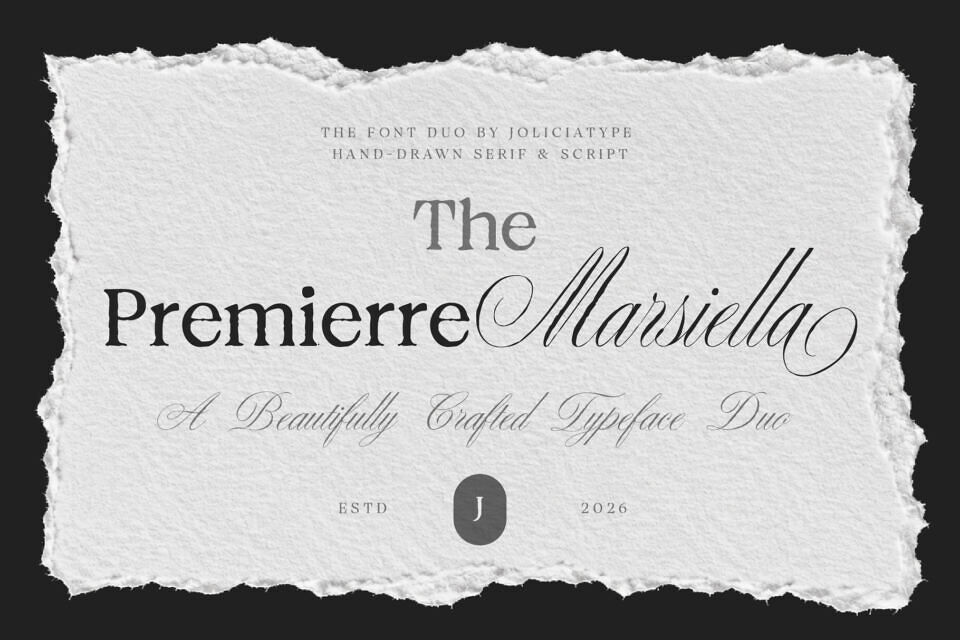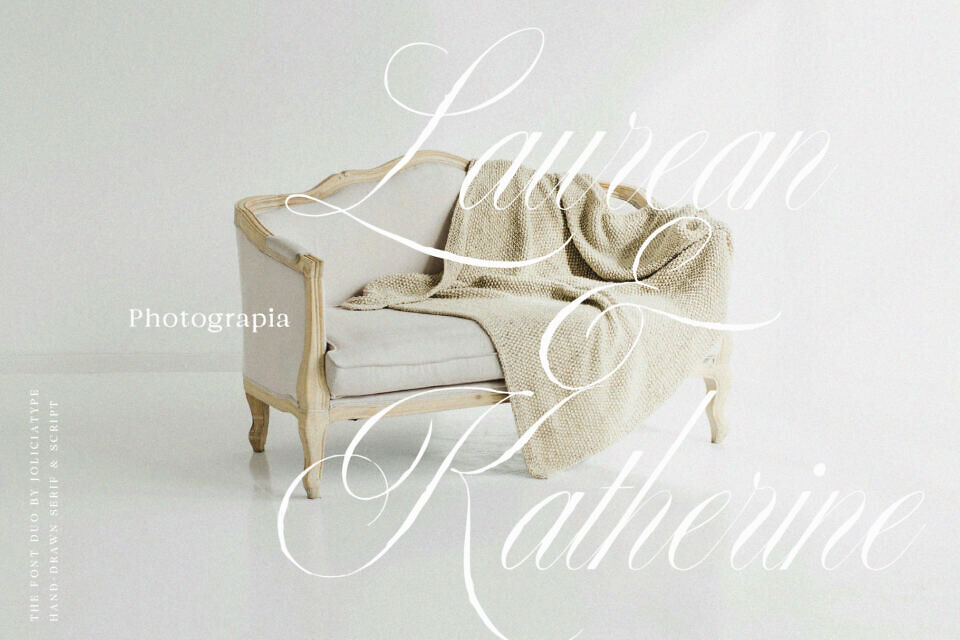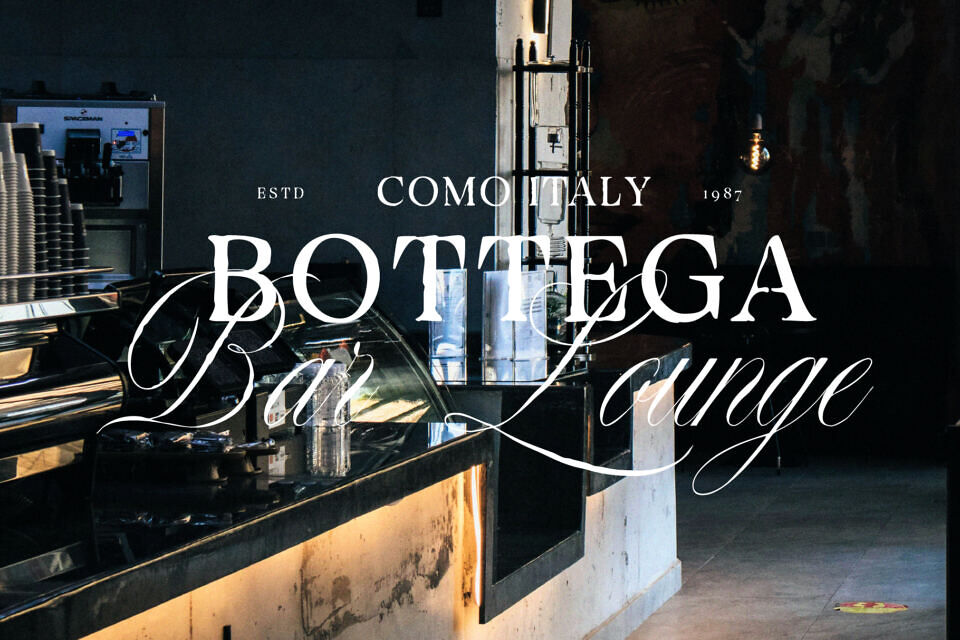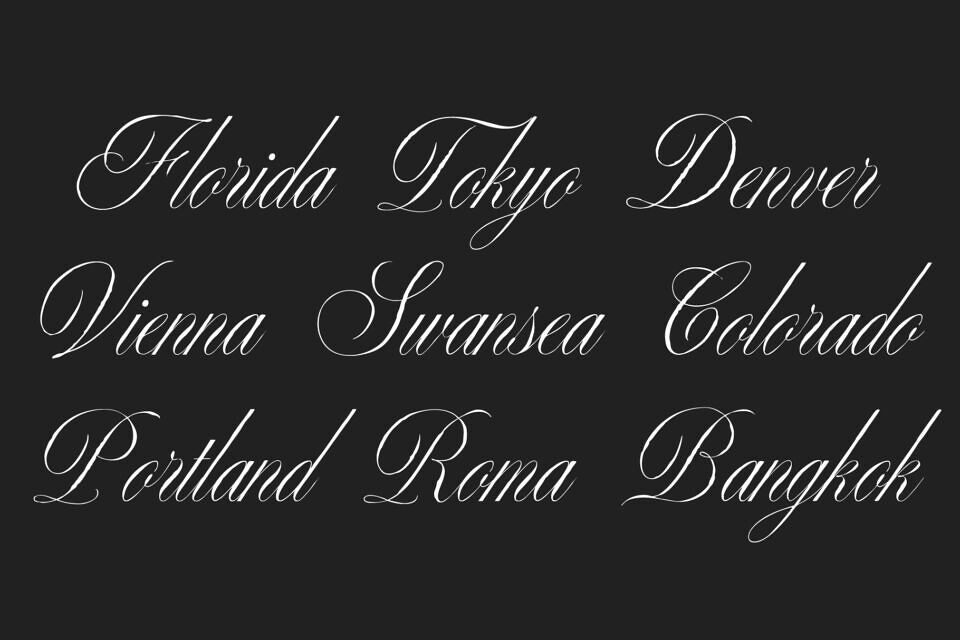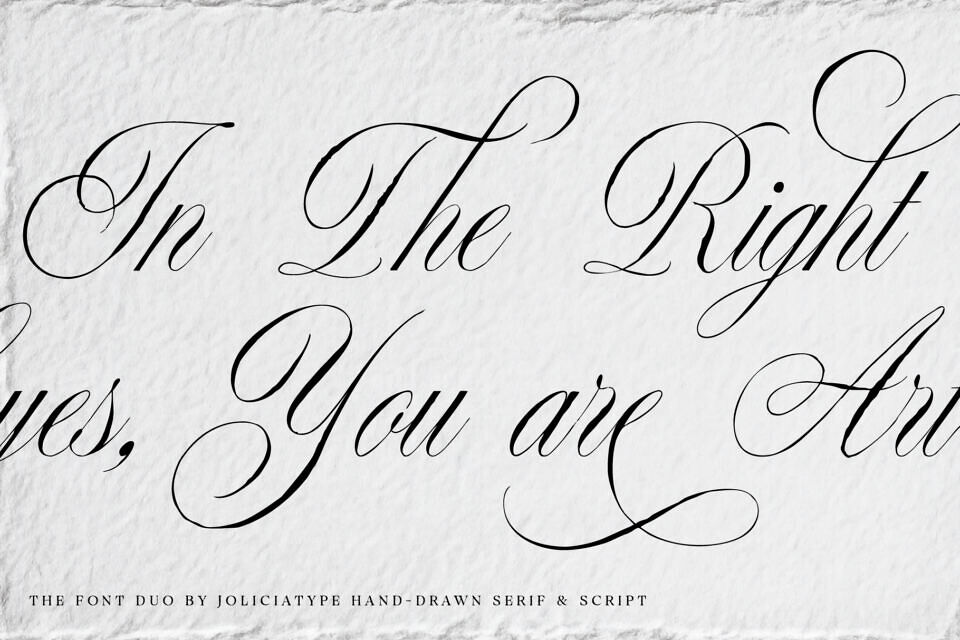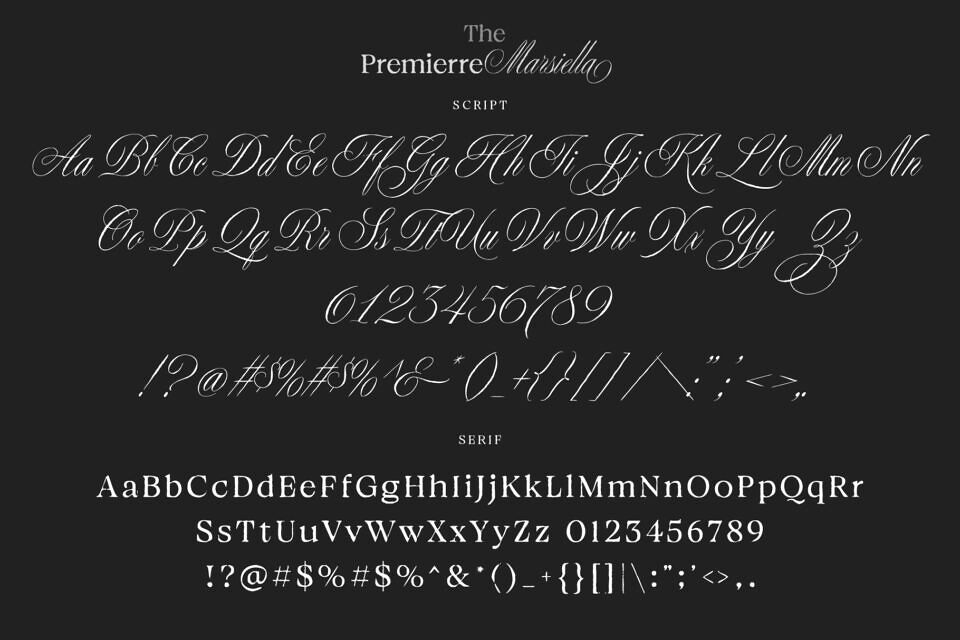
Premierre Marsiella is a luxurious font duo that beautifully combines the timeless elegance of an oldstyle serif with the graceful charm of a handwritten script. Inspired by luxury branding, vintage romance, and high-end fashion aesthetics, Premierre Marsiella delivers a distinguished and memorable appearance perfect for projects that demand elegance and exclusivity.
Perfect for luxury branding, wedding invitations, beauty products, fashion labels, boutique logos, packaging design, social media content, editorial layouts, book covers, and premium marketing materials. Premierre Marsiella is crafted to elevate your designs with sophistication, warmth, and timeless luxury.